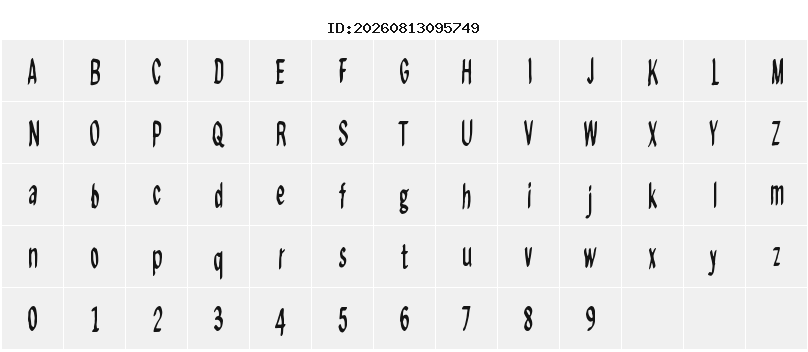
Regurgance Preview
• Font Name: Regurgance
• Full Font Name: Regurgance
• Version: Version 1.00 September 16, 2015, initial release
About Regurgance.ttf
Regurgance.ttf is a modern, elegant sans-serif font designed for ultimate readability and visual harmony. Perfect for branding, headlines, web design, and print materials.